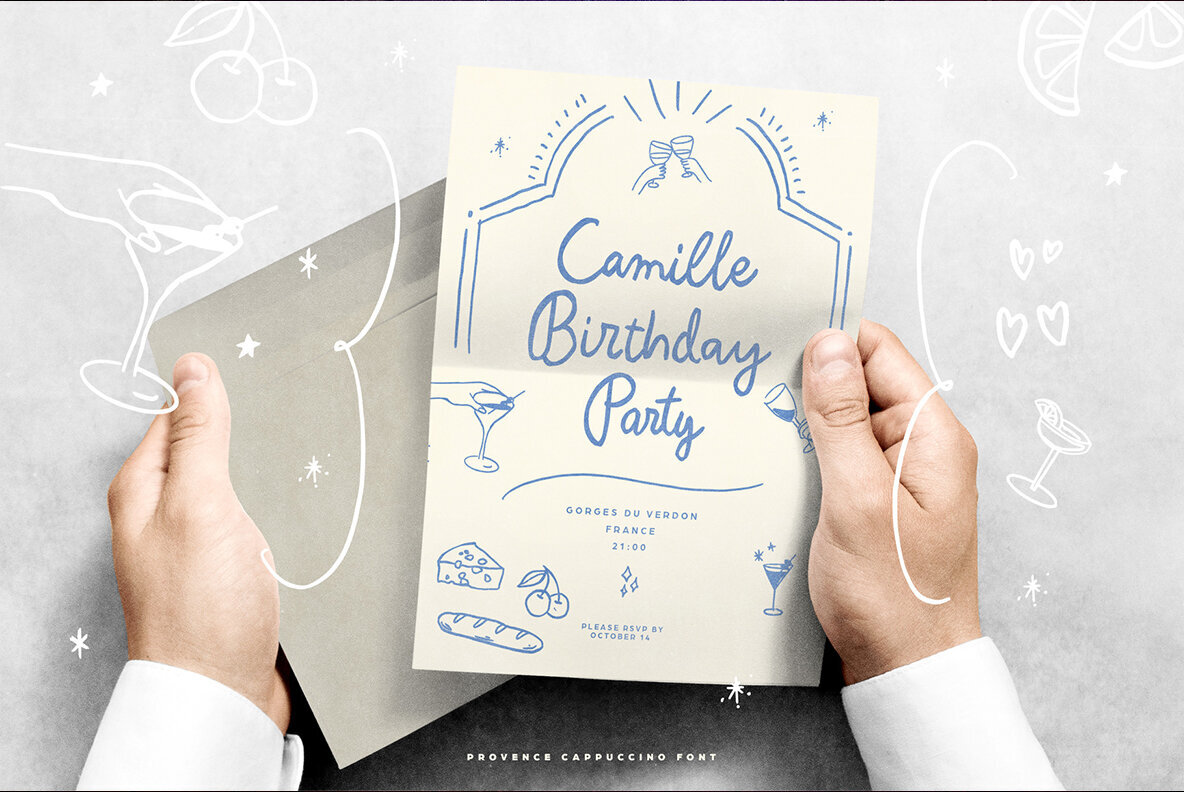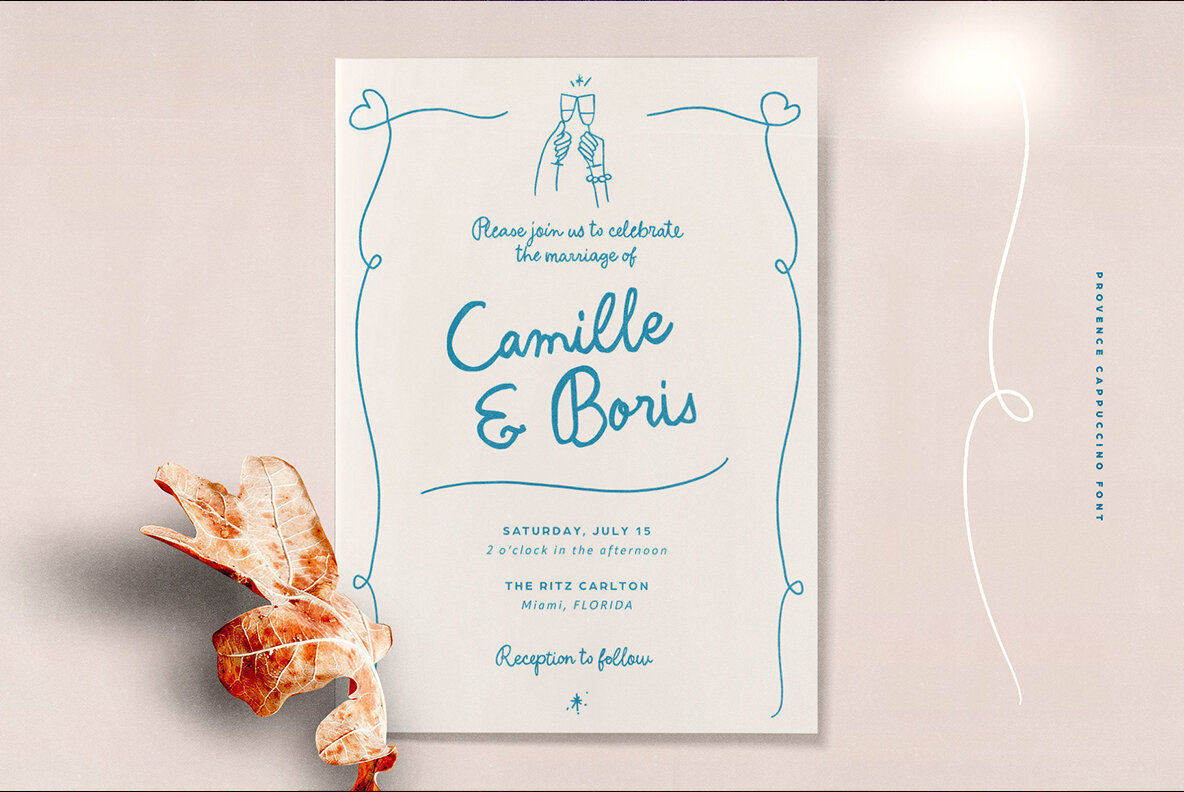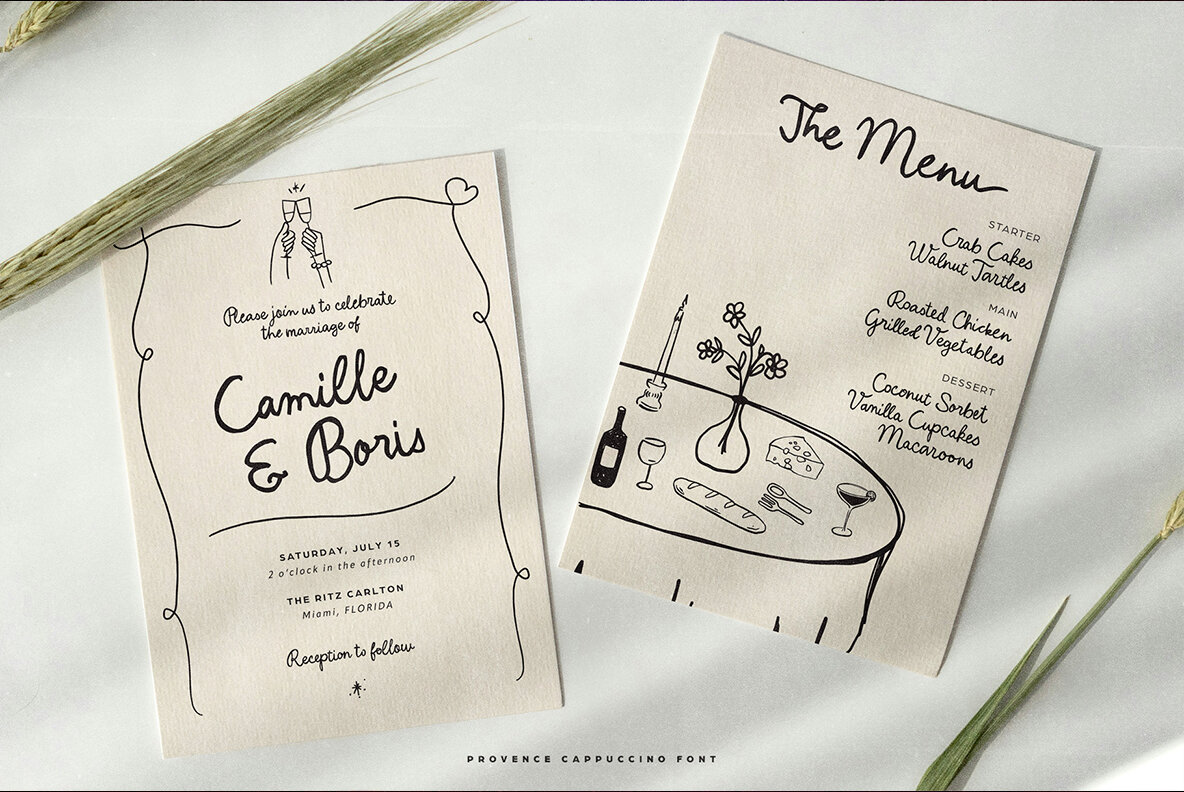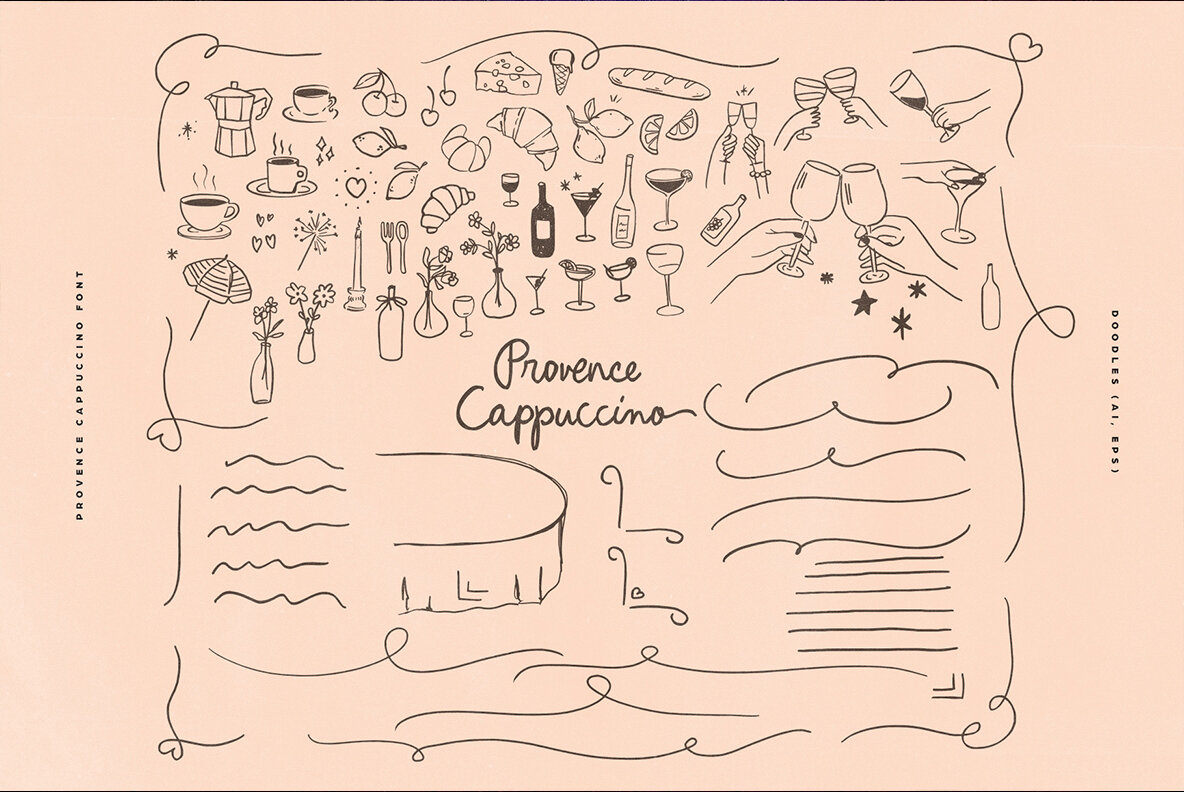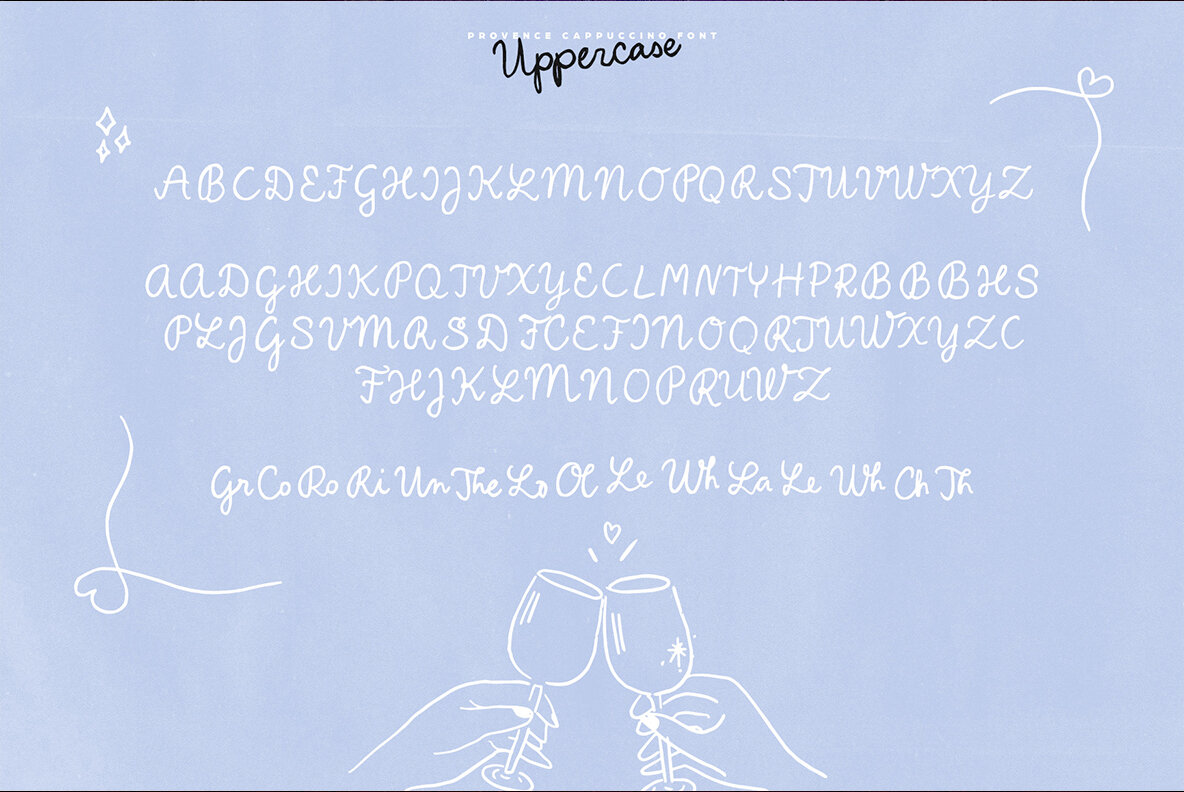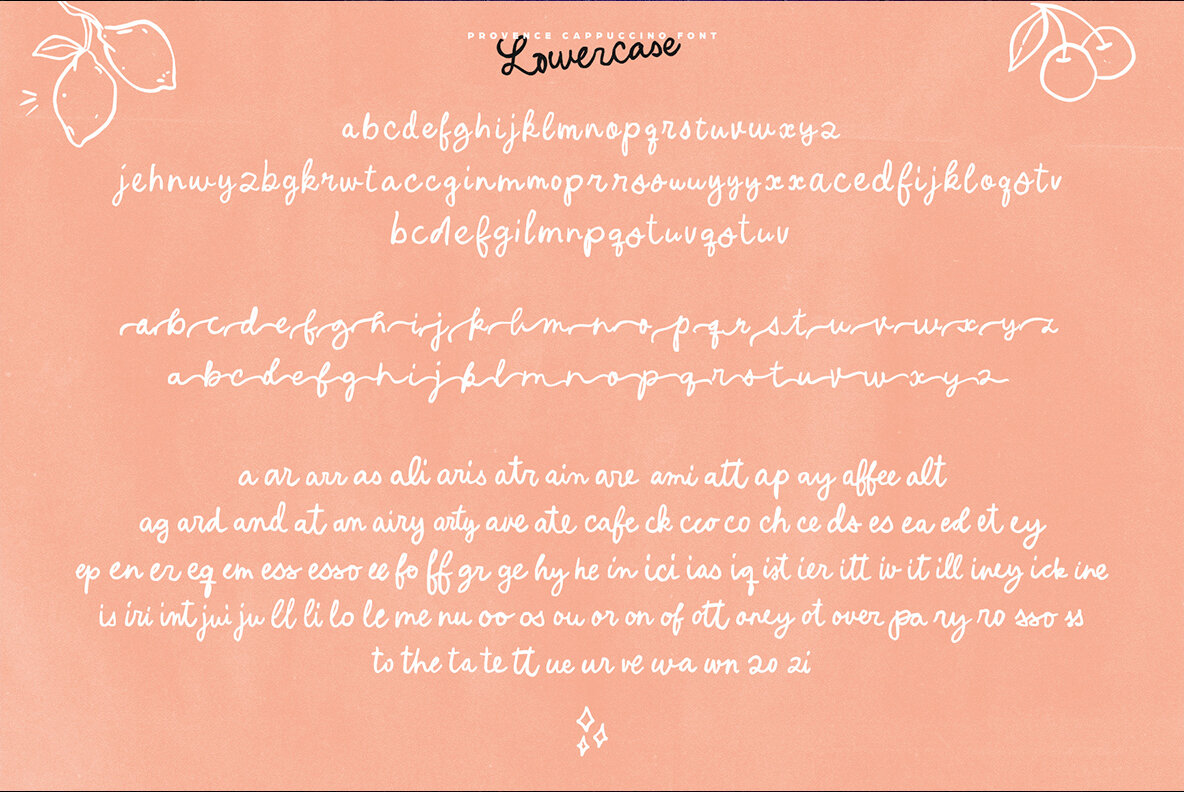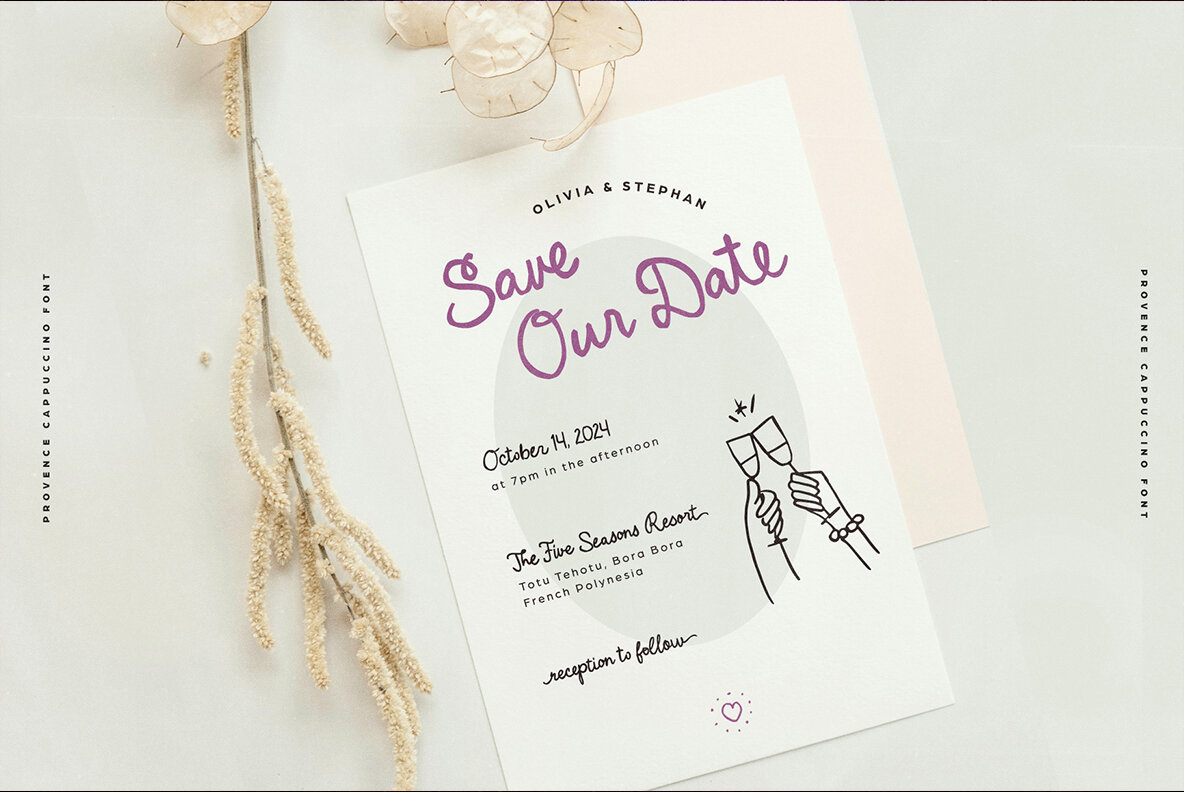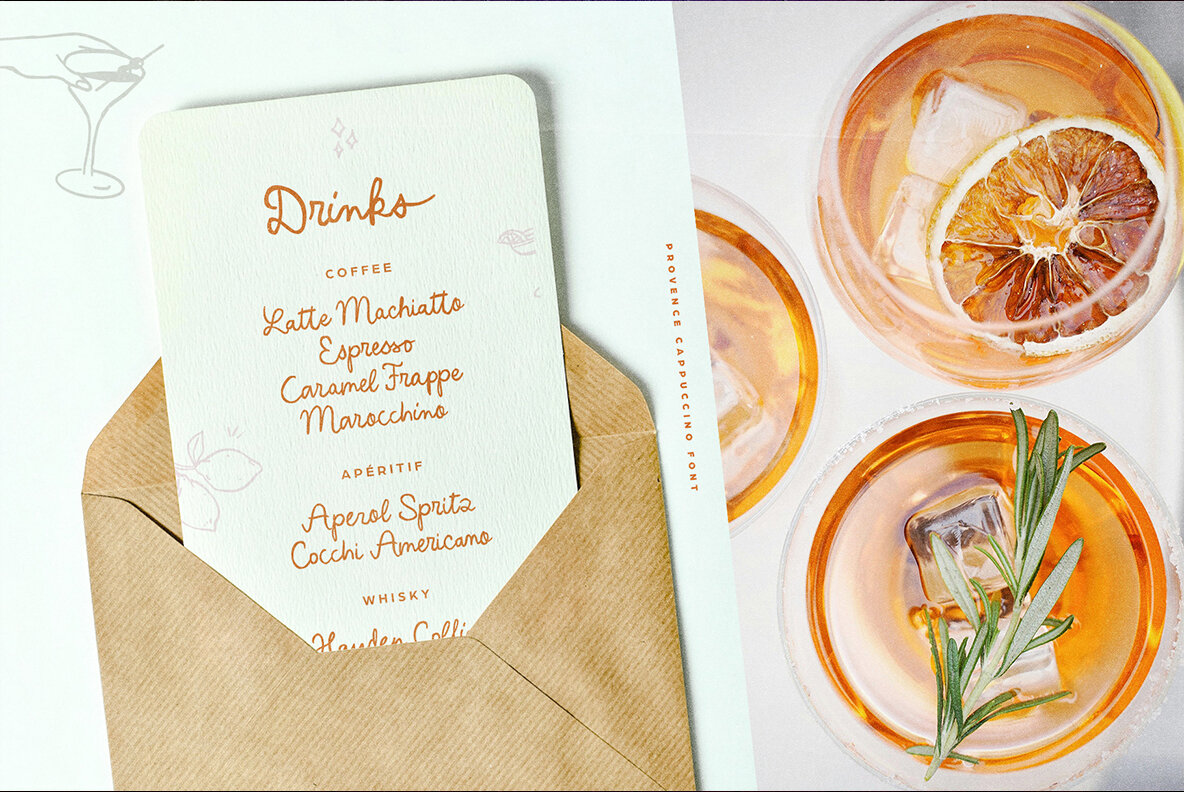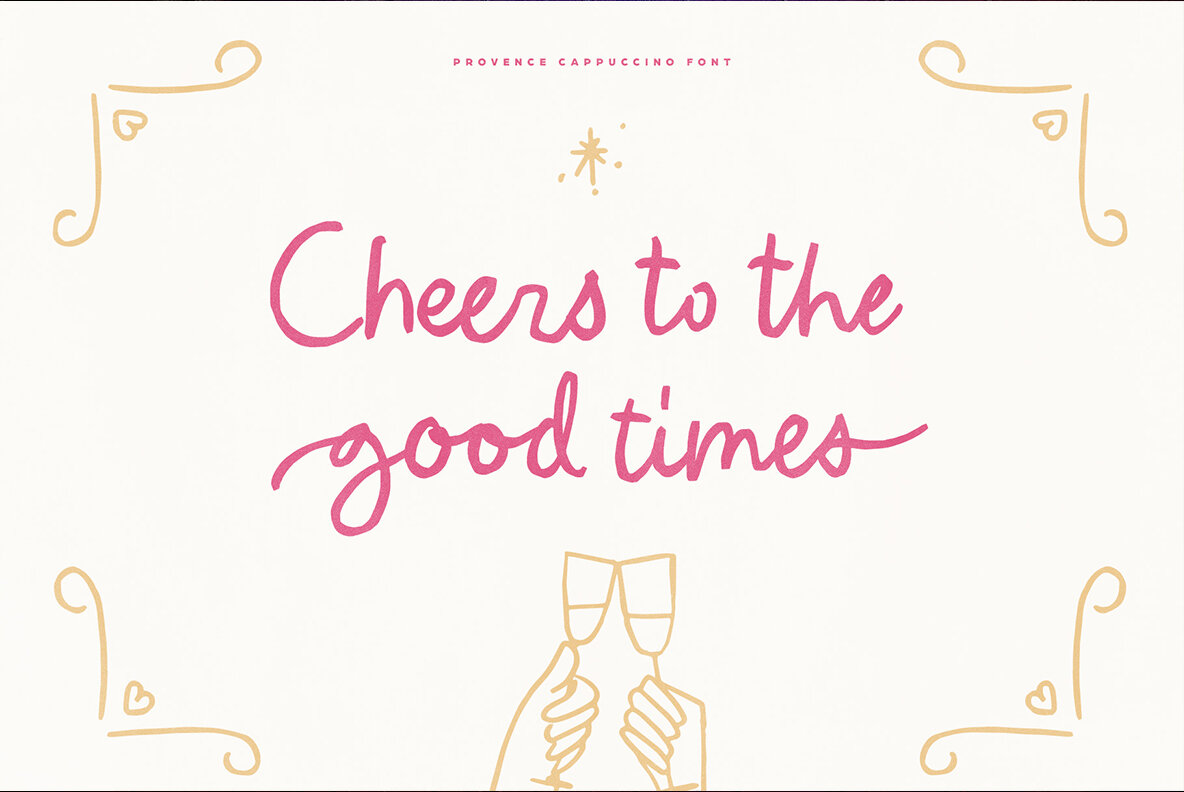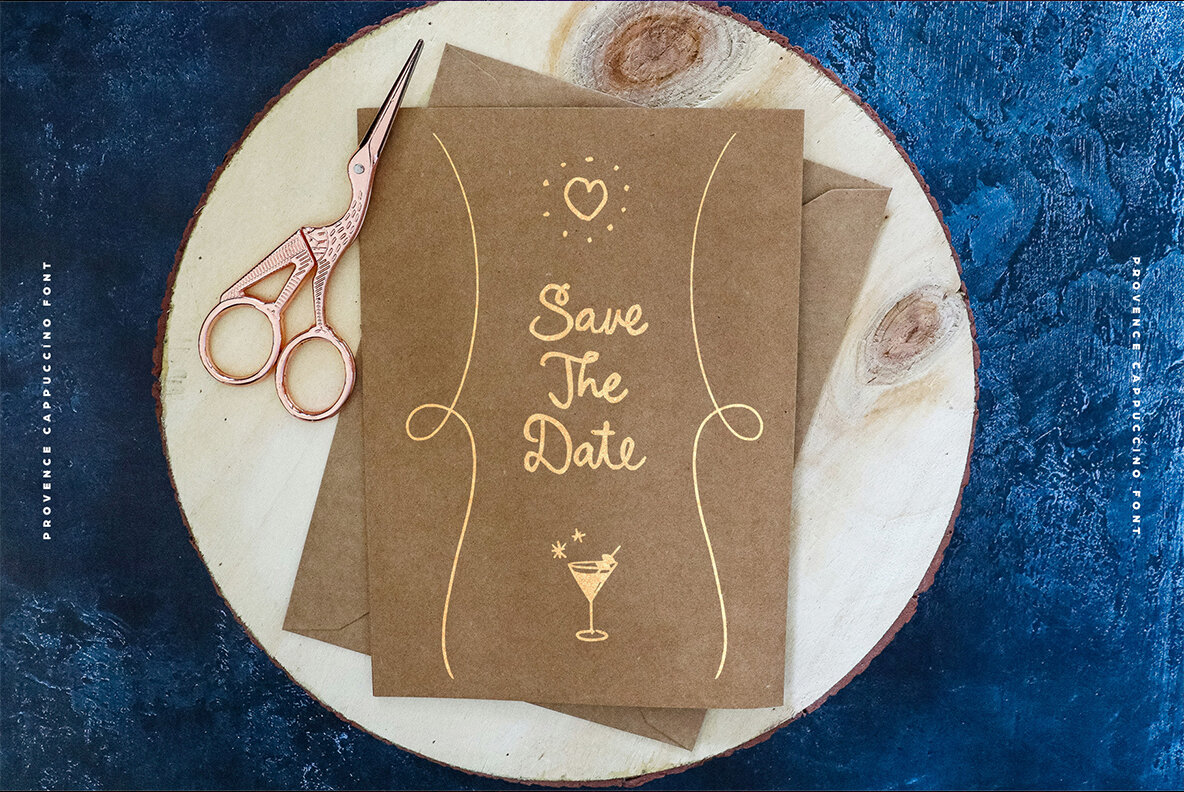
Provence Cappuccino Font
Provence Cappuccino is a playful handwritten font perfect for wall invitations, restaurant menus, books, greeting cards, logos, or anything that requires a handwritten look! Provence Cappuccino font includes alternate letters for EACH character, beginning and ending swashes for all lowercase letters and 110 ligatures for realistic handwritten feel. For access to Stylistic Alternates is required software with glyphs panel like Photoshop and llustrator. No special software is required to use Ligatures.